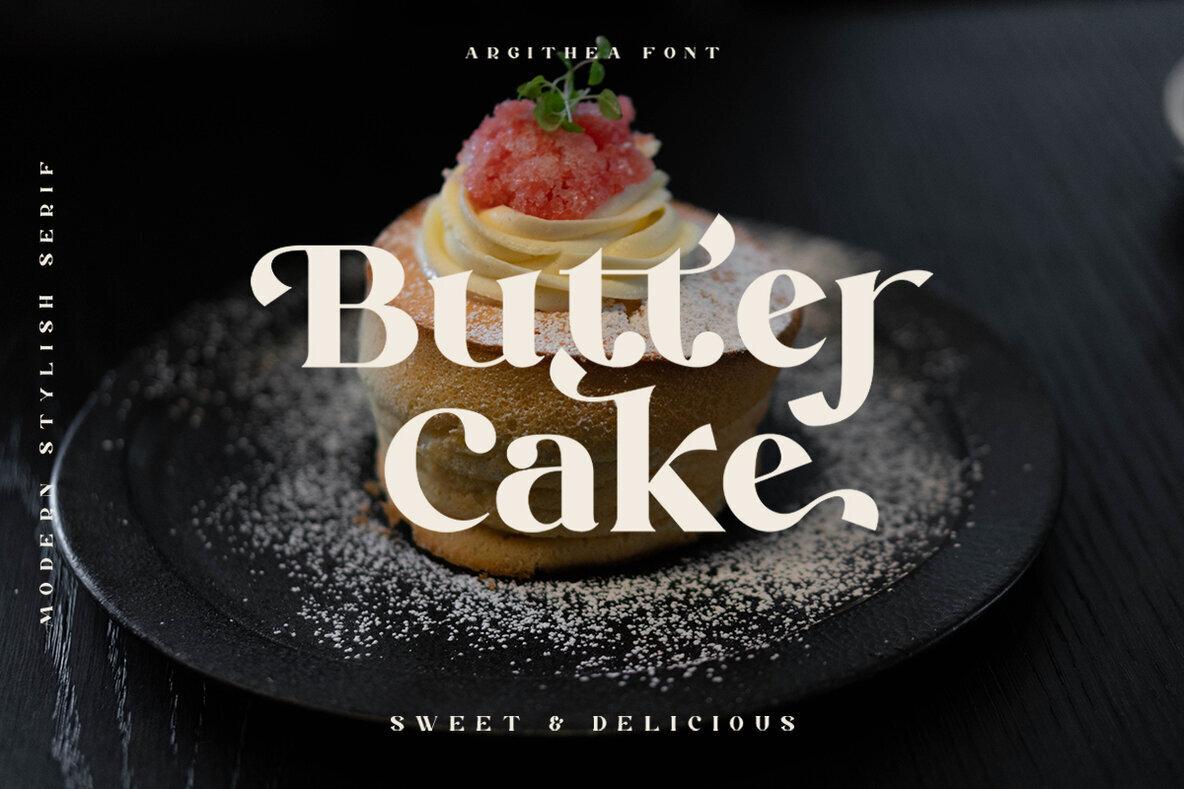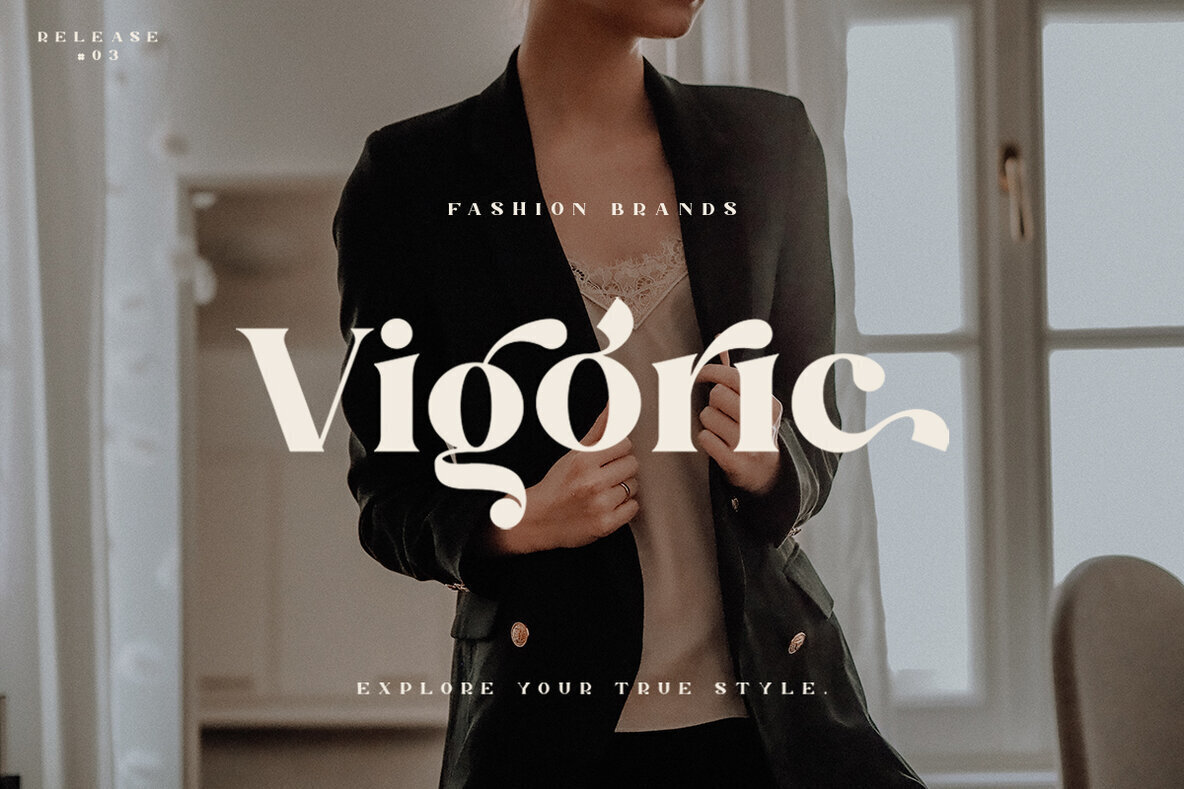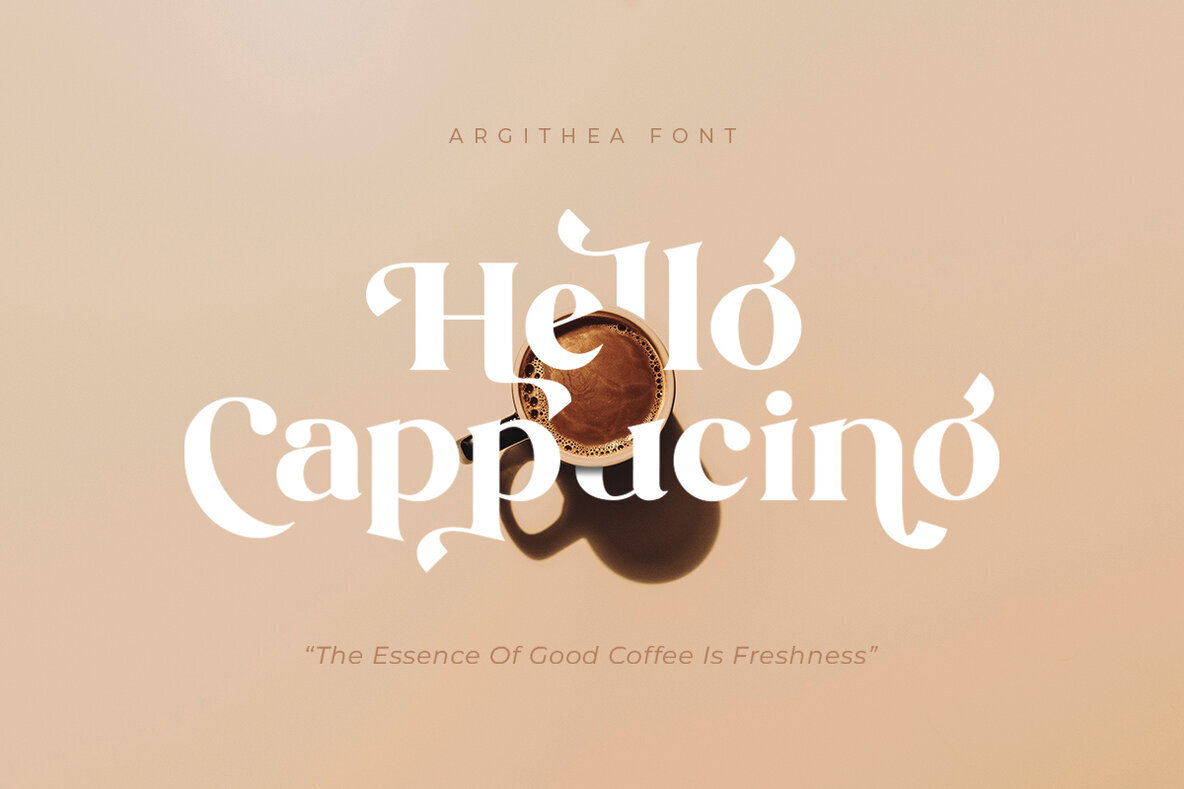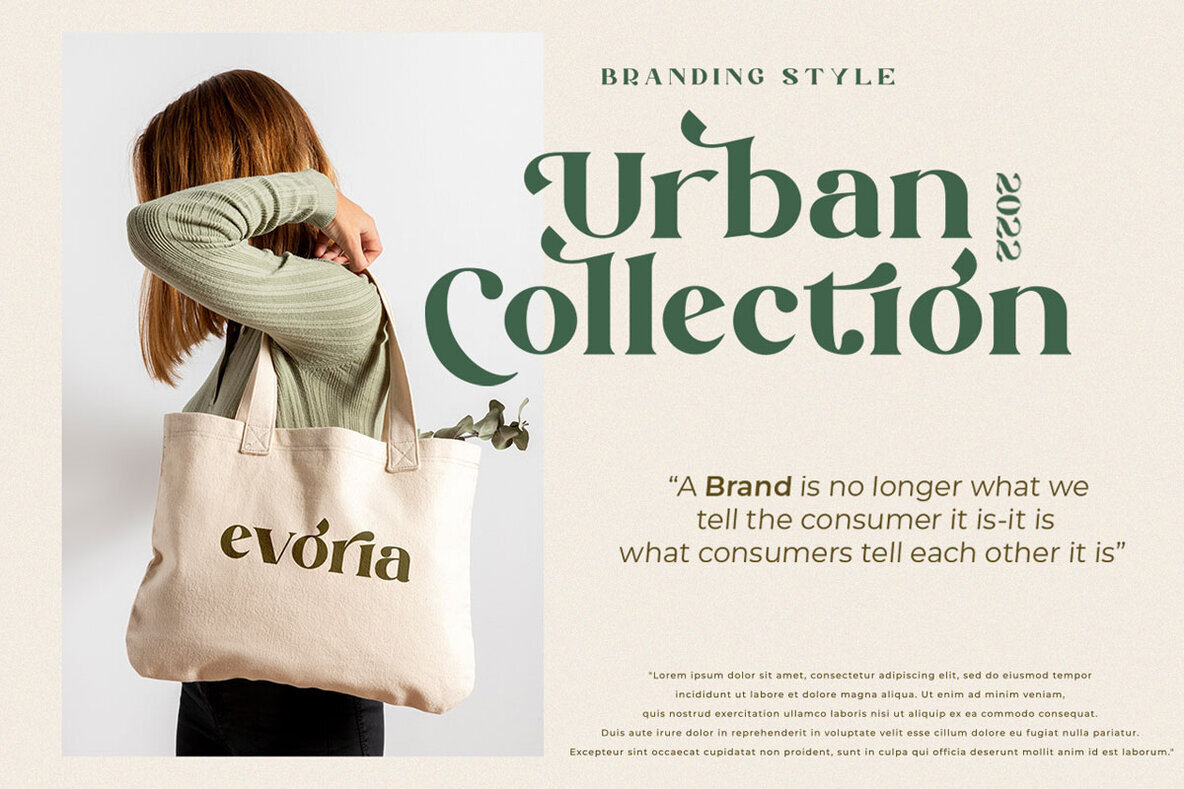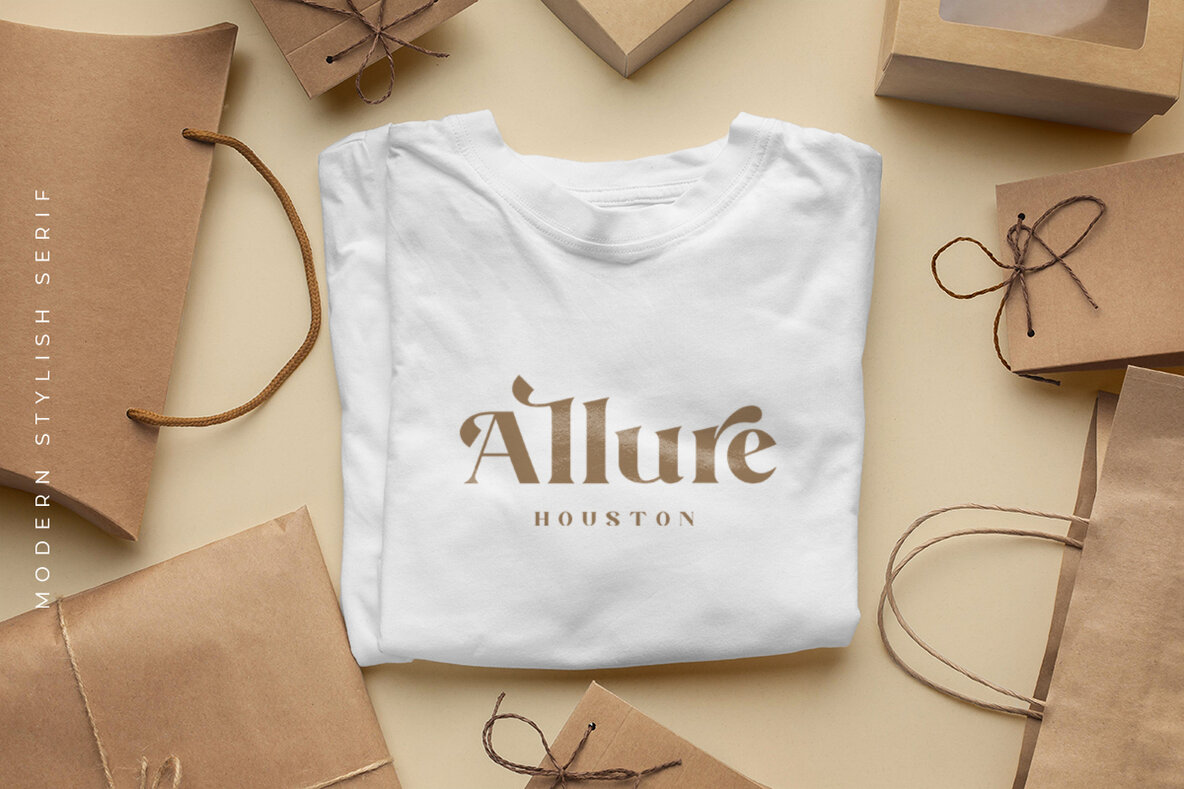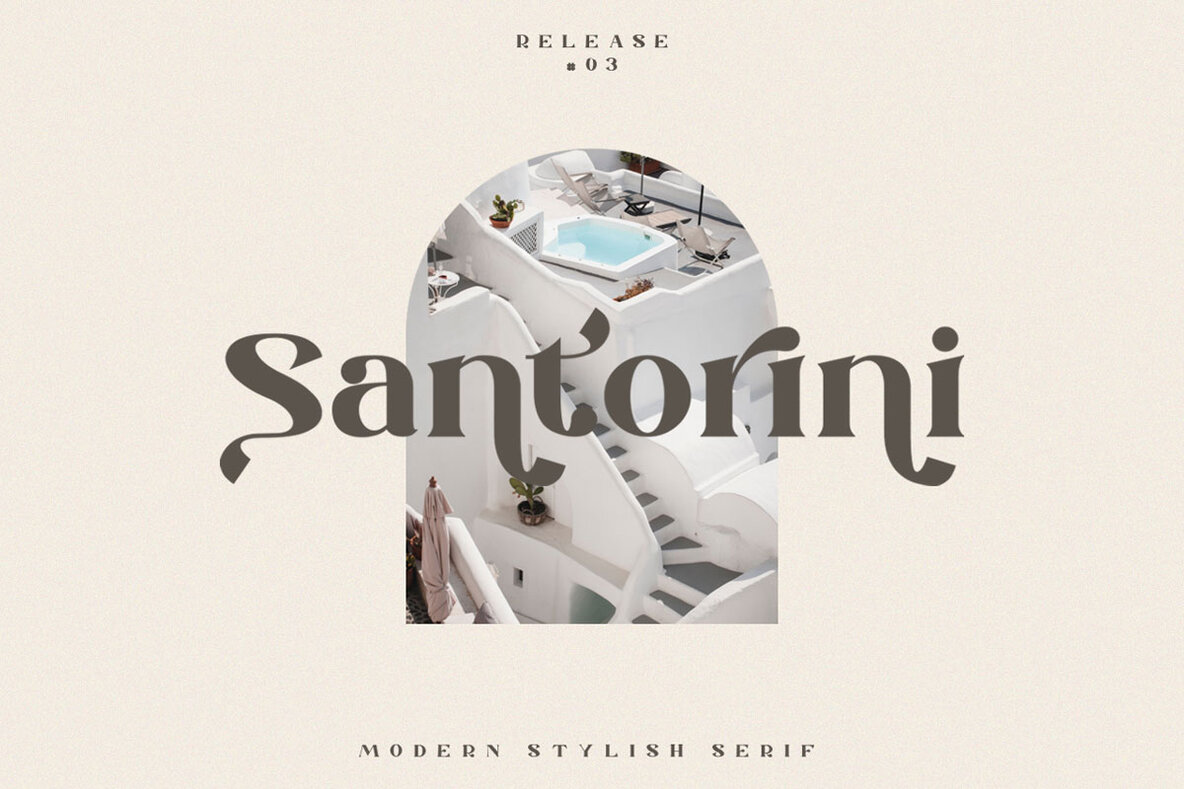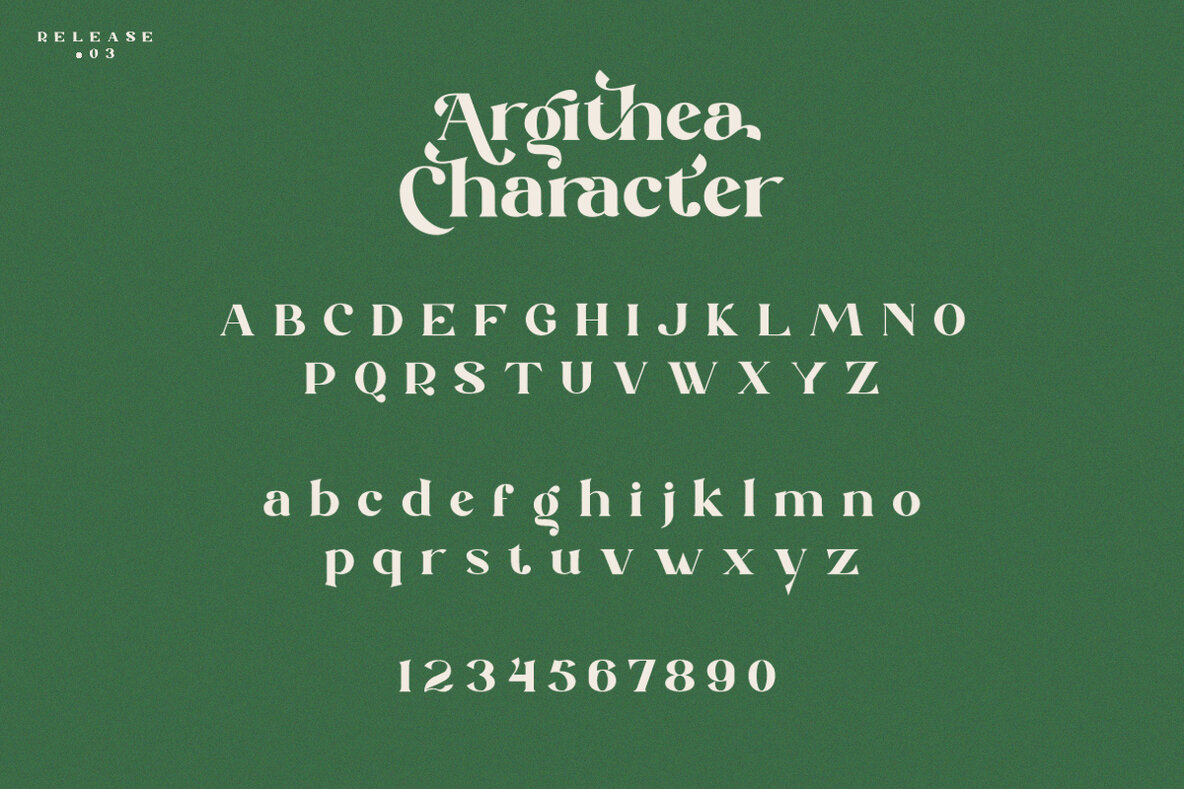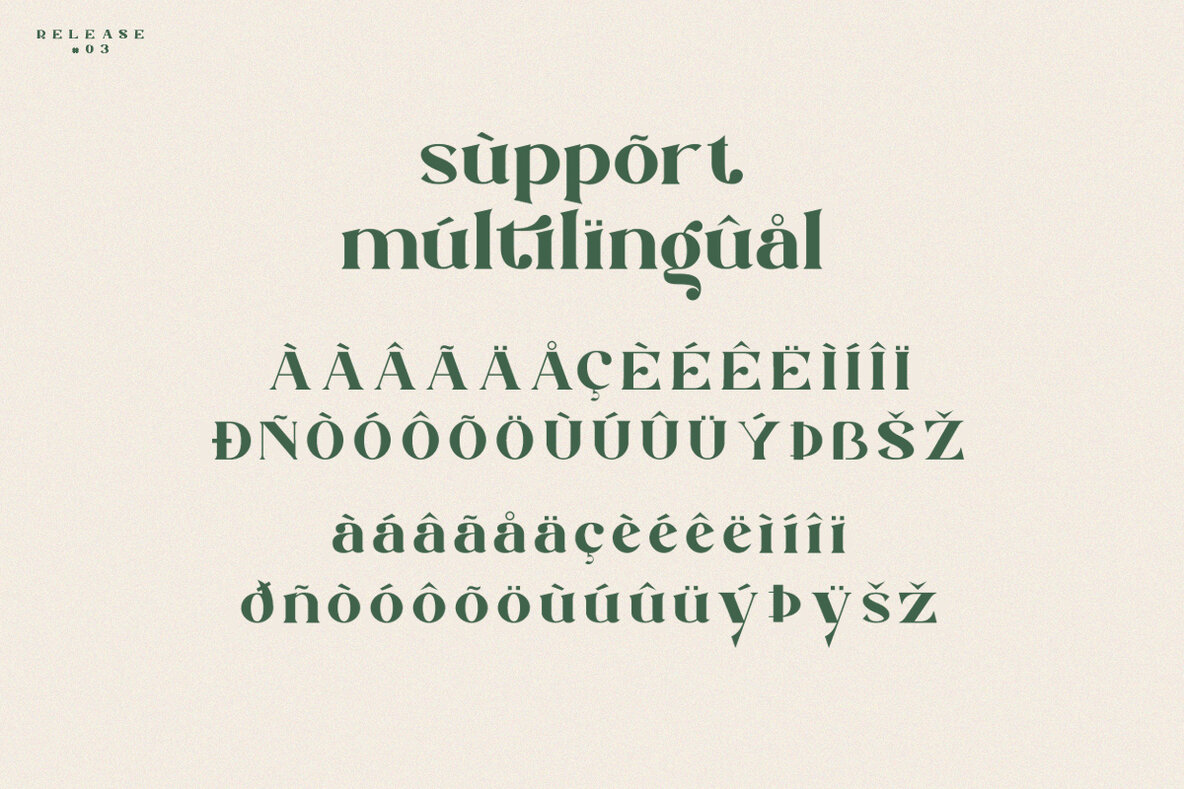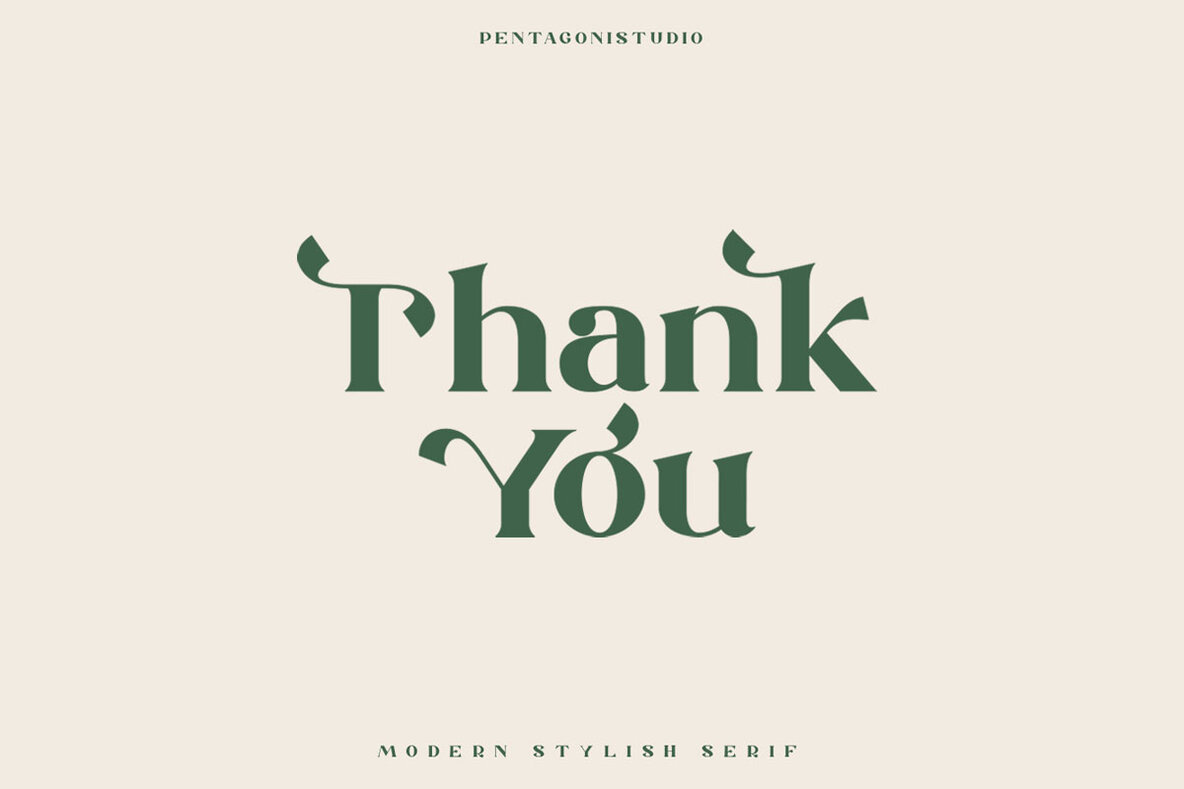
Argithea Font
Argithea
Argithea emerges from Pentagonistudio as a remarkable font that embodies both modern sophistication and nostalgic charm. This font finds the perfect harmony between bold, stylish serif elements and vintage-inspired curves, making it an ideal choice for graphic designers seeking a touch of elegance in their projects.Argithea: Bold Serif with Vintage Curves